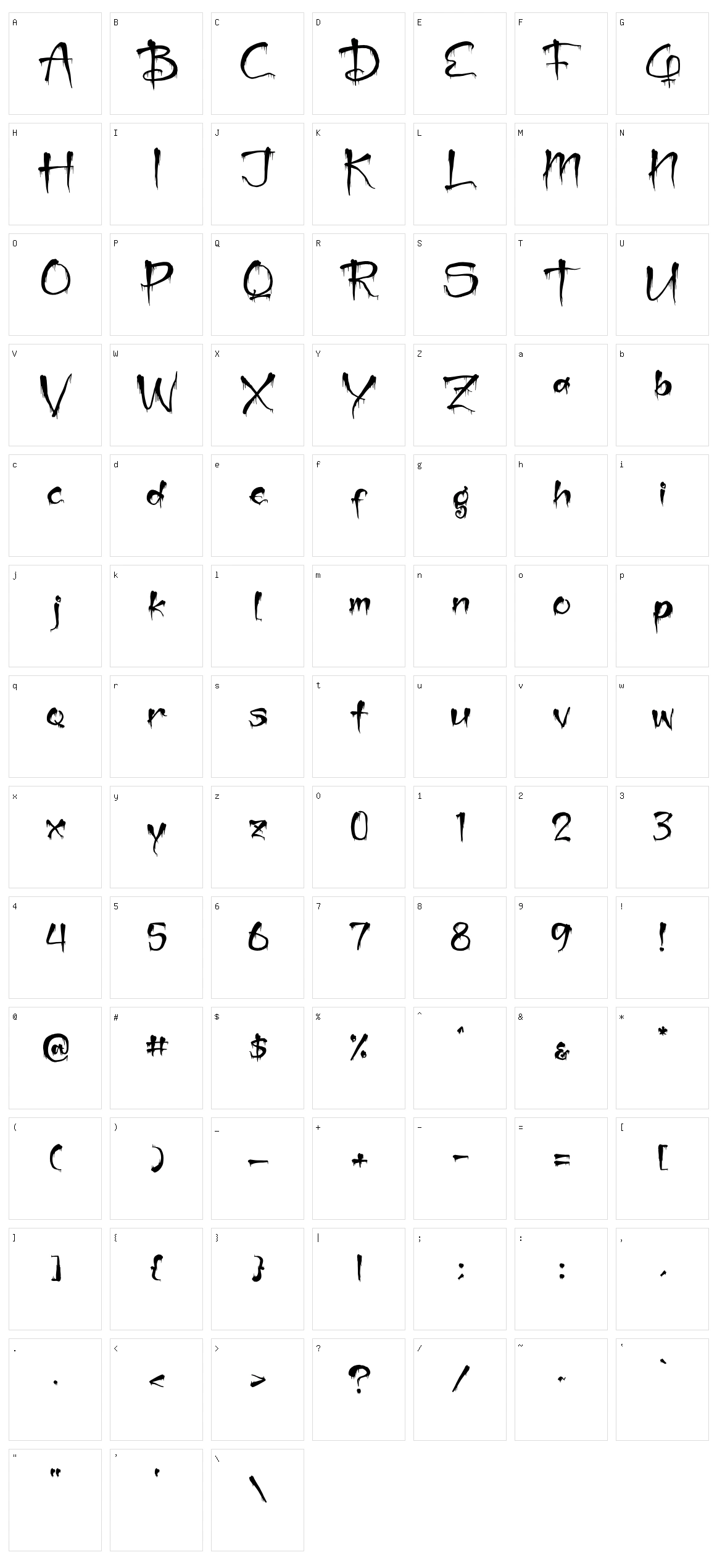
The free font Ghost Activity is carefully designed by Letterena Studios, showcasing a thoughtful balance of creativity and usability and falls under the Halloween font style. When you download the ZIP file, it contains only 145.51 KB of font files, making it lightweight and quick to download. Please review the license details below to understand permitted usage and distribution rights. If license information is not available, we recommend using this font for personal projects only or contacting the author directly for commercial usage permissions.